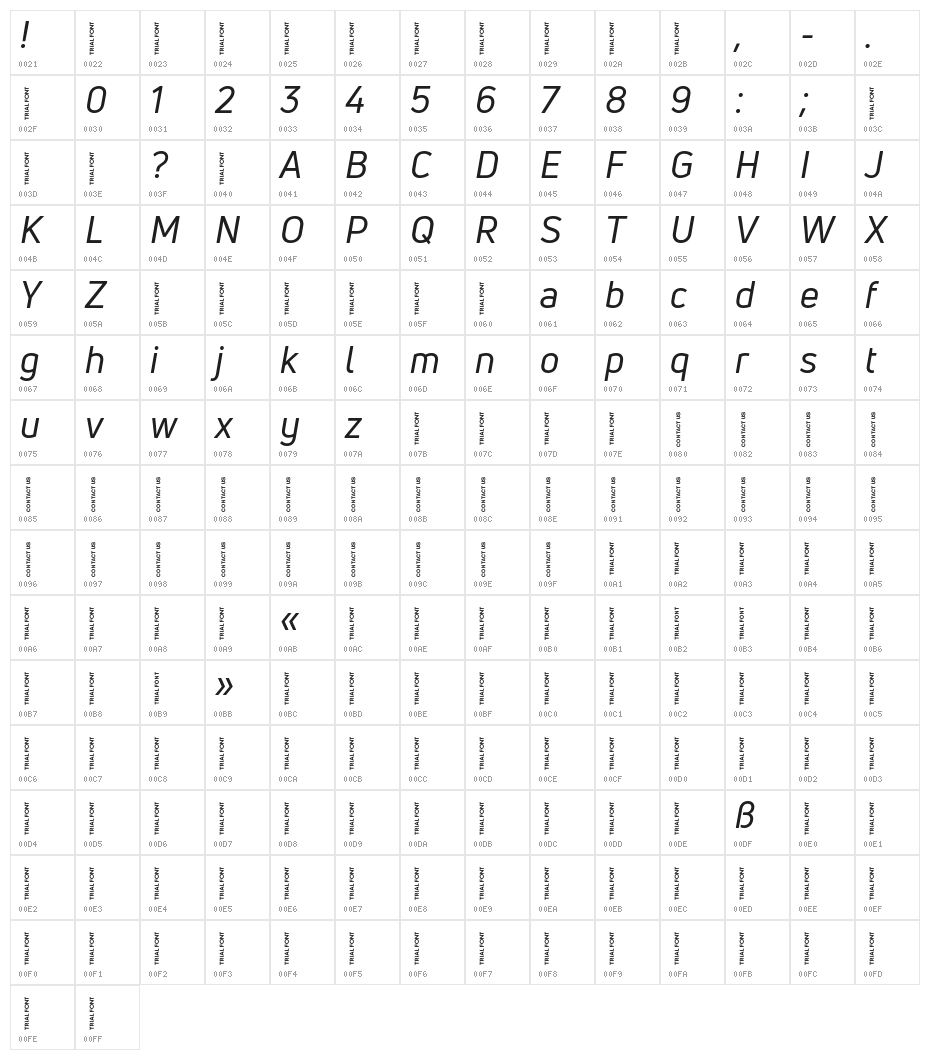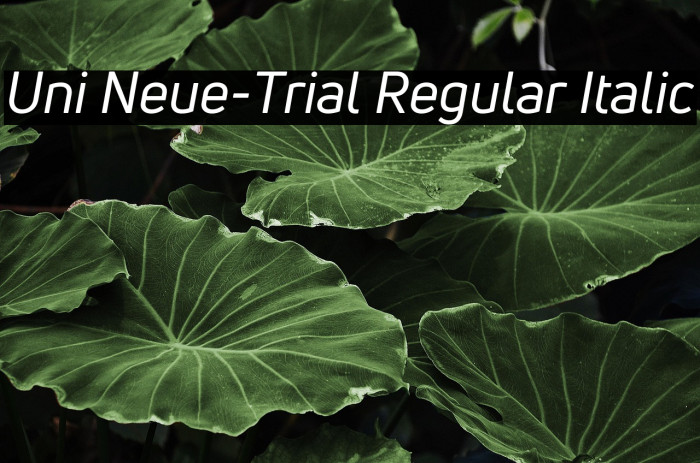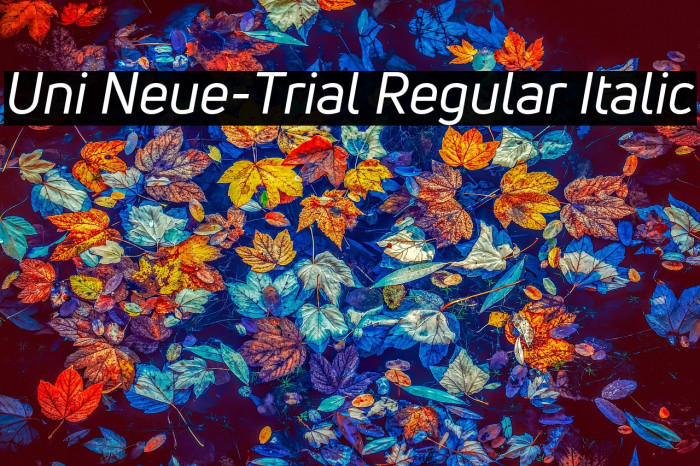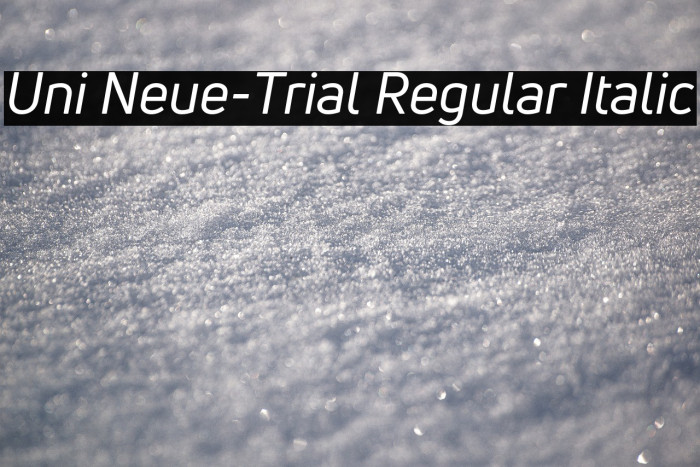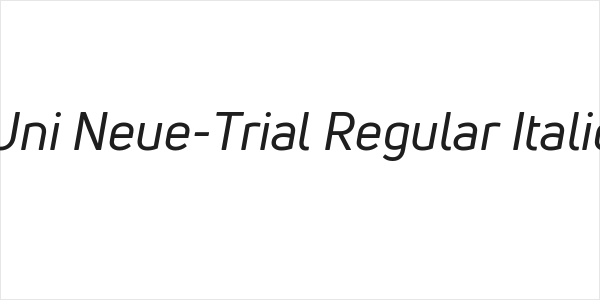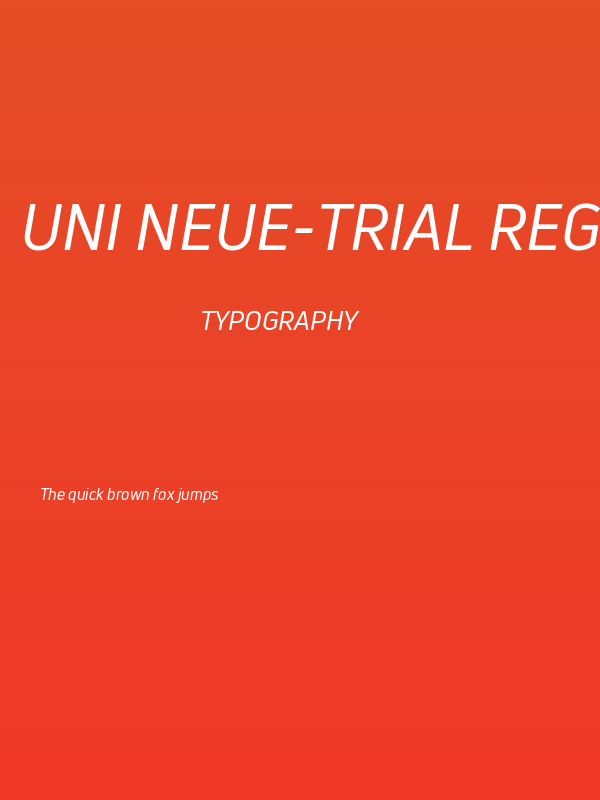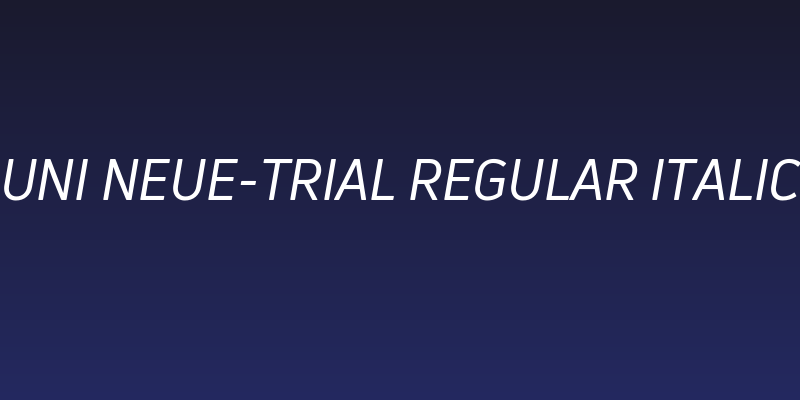
Uni Neue-Trial Regular Italic Font
Uni Neue-Trial Regular Italic Description
This font exhibits a clean and modern aesthetic with a slight italic slant, giving it a dynamic and forward-moving appearance. The characters are well-proportioned, with a consistent stroke width that maintains readability across various sizes. The design is sleek and minimalistic, making it suitable for contemporary applications. The numerals are clear and distinct, ensuring legibility in numerical data presentations. Special characters are designed with the same attention to detail, providing a cohesive look throughout the typeface.
| Proposed Projects | Ideal for branding, digital interfaces, and editorial design where a modern and professional look is desired. |